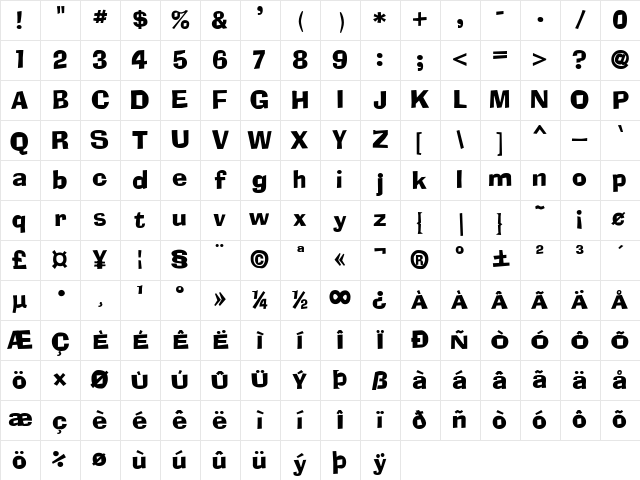
W3DRFont Regular Free Font
W3DRFont Regular
Design Context for W3DRFont
W3DRFont is a composed and adaptable typeface that performs quietly and consistently across a wide range of design contexts.
Pro Tip: Use W3DRFont in both headline and body roles to test its range before committing to a single application.